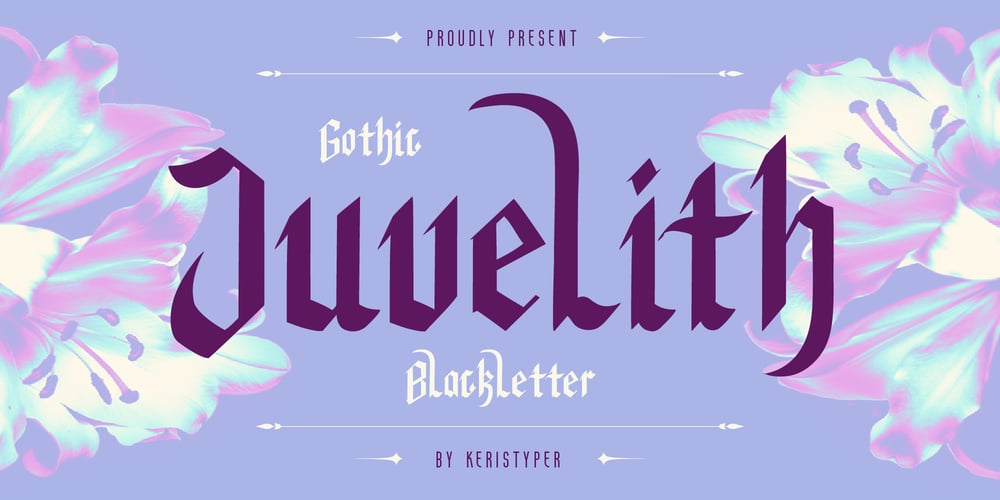
Juvelith Font Family was designed by Tezar Tantular and published by Keristyper Studio. Juvelith contains 1 styles and family package options. Proudly present Juvelith a modern black letter font inspired by contemporary design and calls back to Old English Gothic Scriptures. This font is good for logo design, Social media, Movie Titles, Books Titles, short text even long text letters, and good for your secondary text font with sans or serif.**Featured:*** Standard Uppercase & Lowercase* Numeral & Punctuation* Multilingual : ä ö ü Ä Ö Ü ß ¿ ¡* Alternate & Ligature* PUA encodedWe recommend programs that support the OpenType feature and the Glyphs panel such as Adobe applications or Corel Draw. so you can use all the variations of the glyphs.Hope you enjoy our fonts!